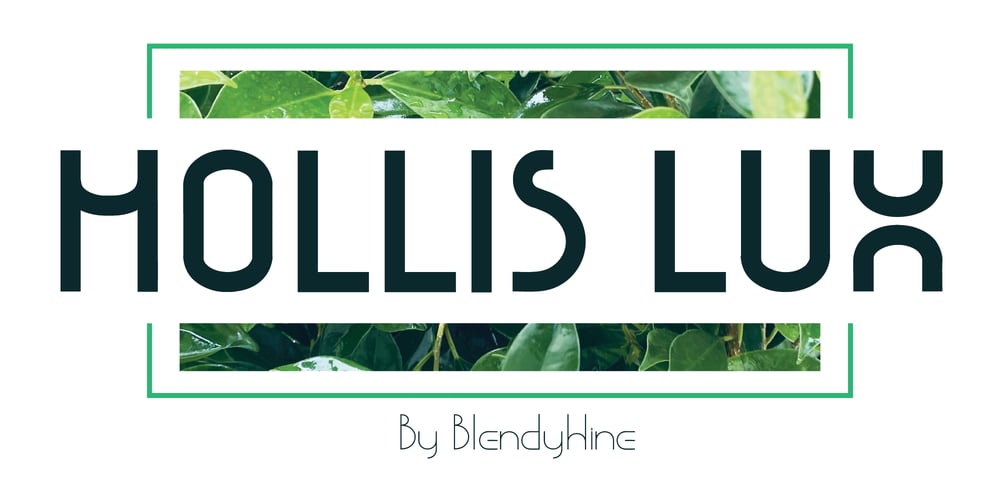
Mollis Lux
Mollis Lux font
Mollis Lux Font Family was designed by Aekkaluk Sukphed and published by Blendy wine. Mollis Lux contains 4 styles and family package options. This font is designed using straight lines and circle segments. The font is simple and universally usable. But there are some unique characters such as S,K,X, and Y.